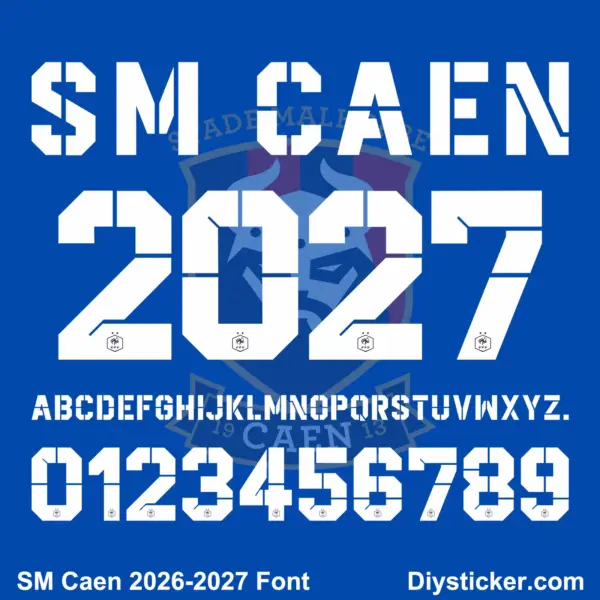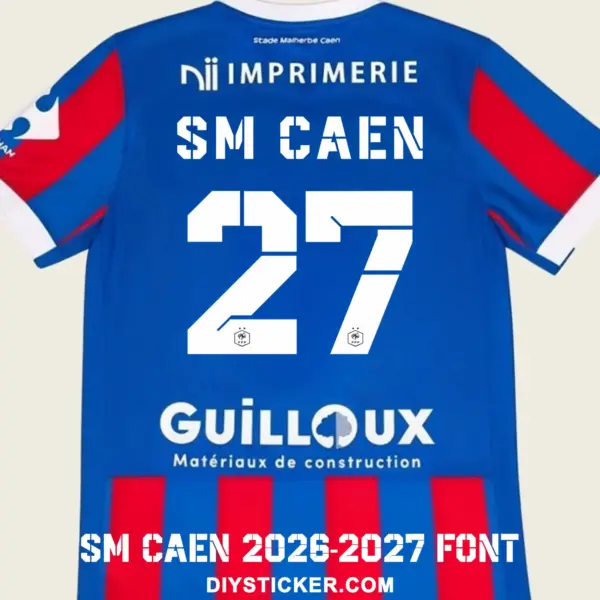
Elevate your custom French football jersey production with the official SM Caen 2026-2027 font download! Custom-designed for Les Typons apparel customizers and print shops, this typography kit replicates the bold, angular stencil-style letterforms used by Stade Malherbe Caen. Featuring sharp geometric cuts, industrial stencil breaks, and the official FFF French Football Federation badge embedded at the base of every digit, this asset bundle is the definitive custom jersey printing font SM Caen solution for heat press transfers, DTF printing, and vinyl cutting.
Complete uppercase alphabet, French football jersey numbers vector, and international diacritics.
Bring Industrial Precision to Your Custom Kits with the SM Caen 2026-2027 Font
Upgrade your sports typography library with the distinctive 2026-2027 kit font for Stade Malherbe Caen! Designed for modern jersey customization, this digital asset package delivers an authentic SM Caen 2026-2027 font download featuring a tactical, stencil-inspired aesthetic. Characterized by chamfered 45-degree corners, prominent negative-space cutouts, and high-impact block lettering (SM CAEN), this typography ensures maximum legibility against Caen’s iconic blue and red vertical stripes.
Comprehensive Character Mapping
Your instant digital asset download includes a full alphanumeric character set configured to match team specs:
A-Z Uppercase Stencil Alphabet: Heavyweight, industrial sans-serif letterforms with precise stencil breaks for nameplates.
0-9 Custom Stencil Numbers: Geometric squad digits featuring sharp angled corners, central stencil slots, and the official FFF crest embedded at the bottom (supplied as French football jersey numbers vector).